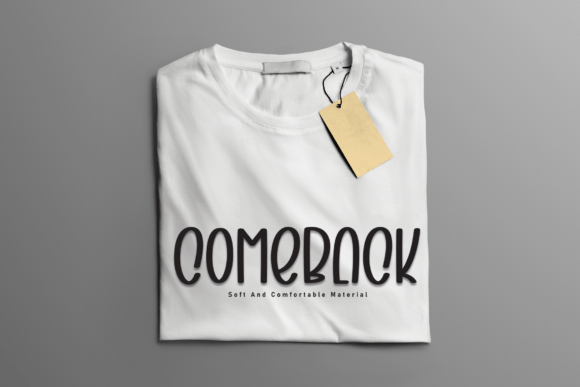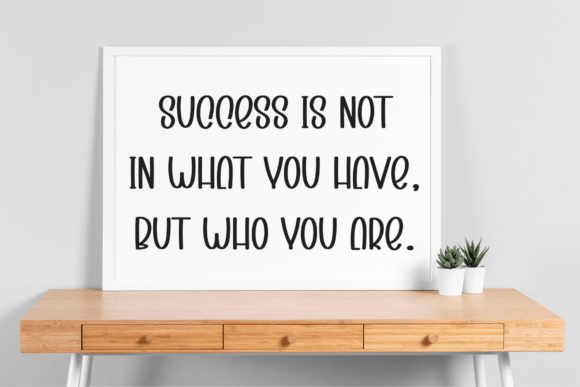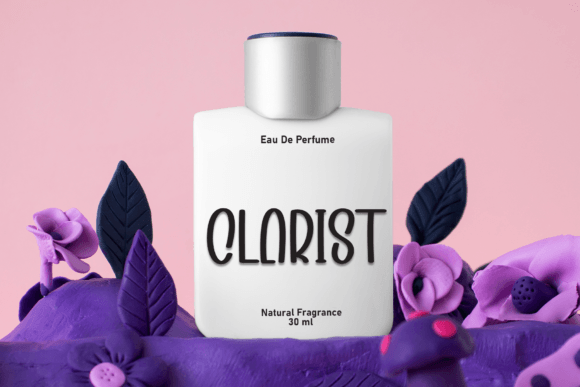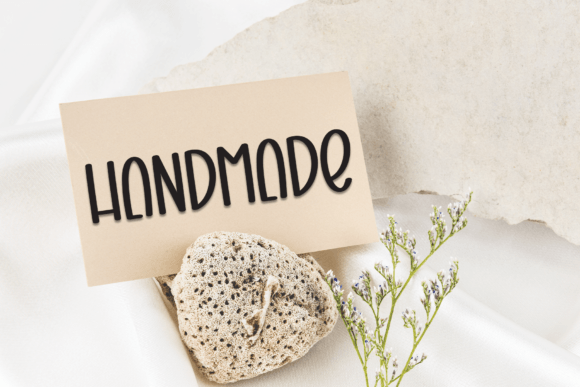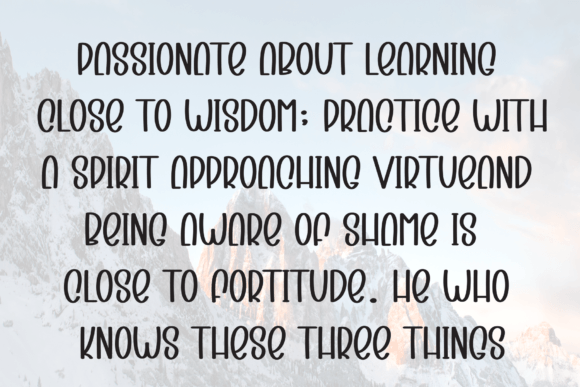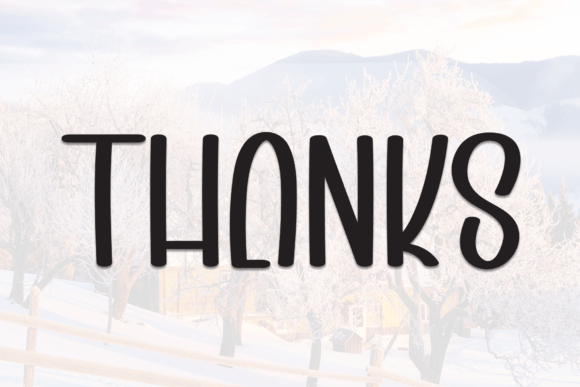
Introducing Christmas Wonderland Font: A Sweet and Friendly Handwritten Delight
Are you looking for a font that captures the essence of the holiday season? Do you want to add a touch of magic to your designs, crafts, and projects? Look no further than Christmas Wonderland Font, a sweet and friendly handwritten font that’s perfect for creating festive and fun designs. In this article, we’ll take a closer look at this amazing font and explore its features, uses, and benefits.
What is Christmas Wonderland Font?
Christmas Wonderland Font is a beautiful, handwritten font that’s designed to evoke the spirit of the holiday season. Its natural and unique style makes it incredibly fitting for a wide range of designs, from holiday cards and invitations to craft projects and digital downloads. The font’s friendly and approachable feel makes it perfect for designs that need a personal touch.
Key Features of Christmas Wonderland Font
- Handwritten style: Christmas Wonderland Font has a beautiful, handwritten style that’s perfect for creating personal and unique designs.
- Natural and unique: The font’s natural and unique style makes it incredibly fitting for a wide range of designs, from traditional holiday designs to more modern and trendy projects.
- Versatile: Christmas Wonderland Font is incredibly versatile and can be used for a wide range of projects, including holiday cards, invitations, craft projects, and digital downloads.
- Easy to read: The font is easy to read, making it perfect for designs that need to be clear and legible.
Uses for Christmas Wonderland Font
Christmas Wonderland Font is perfect for designers, crafters, and DIY enthusiasts who want to add a touch of holiday magic to their projects. Here are some ideas for using this amazing font:
- Holiday cards and invitations: Use Christmas Wonderland Font to create beautiful, personalized holiday cards and invitations that will make your loved ones feel special.
- Craft projects: Add a touch of holiday magic to your craft projects, such as scrapbooking, paper crafting, and DIY gifts.
- Digital downloads: Use Christmas Wonderland Font to create digital downloads, such as printable art, planners, and organizers.
- Social media graphics: Create festive and fun social media graphics, such as holiday-themed Facebook posts and Instagram stories.
Benefits of Using Christmas Wonderland Font
There are many benefits to using Christmas Wonderland Font in your designs and projects. Here are a few:
- Adds a personal touch: Christmas Wonderland Font adds a personal touch to your designs, making them feel more unique and special.
- Increases creativity: The font’s natural and unique style can help inspire creativity and add a fresh perspective to your designs.
Tips for Using Christmas Wonderland Font
Here are a few tips for using Christmas Wonderland Font in your designs and projects:
- Experiment with different colors: Try pairing Christmas Wonderland Font with different colors and textures to create unique and eye-catching designs.
- Use it with other fonts: Combine Christmas Wonderland Font with other fonts to create interesting and dynamic designs.
- Pay attention to spacing: Make sure to adjust the spacing between letters and words to create a clean and easy-to-read design.
Christmas Wonderland Font is a sweet and friendly handwritten font that’s perfect for adding a touch of holiday magic to your designs and projects. Its natural and unique style makes it incredibly fitting for a wide range of designs, from traditional holiday designs to more modern and trendy projects. Whether you’re a designer, crafter, or DIY enthusiast, Christmas Wonderland Font is a great choice for anyone looking to add a personal touch to their holiday designs.